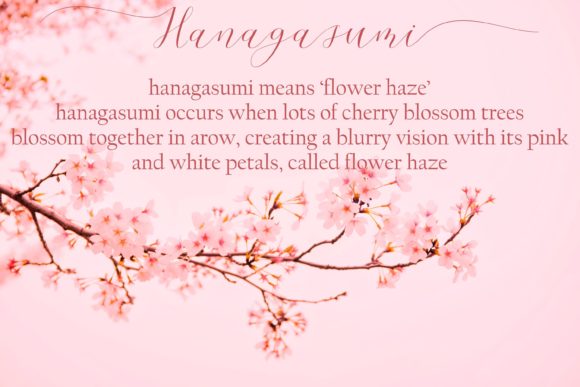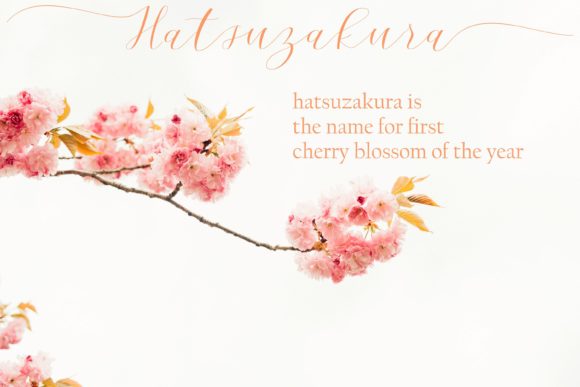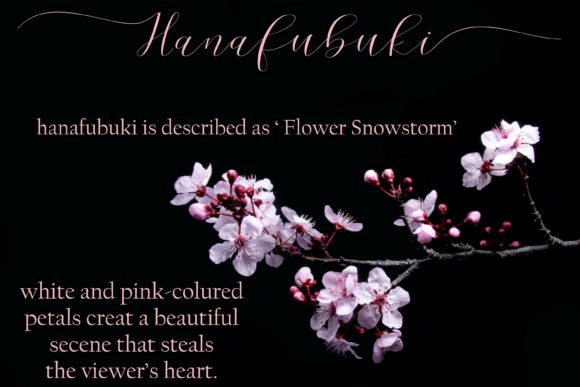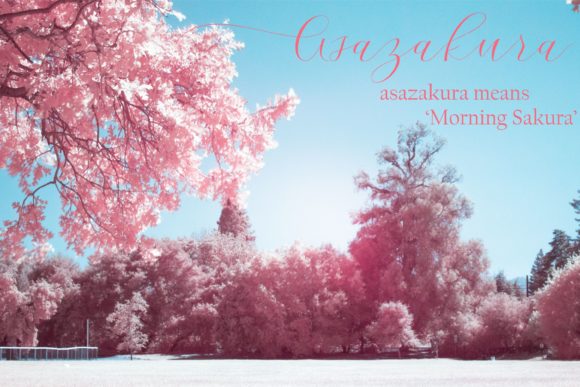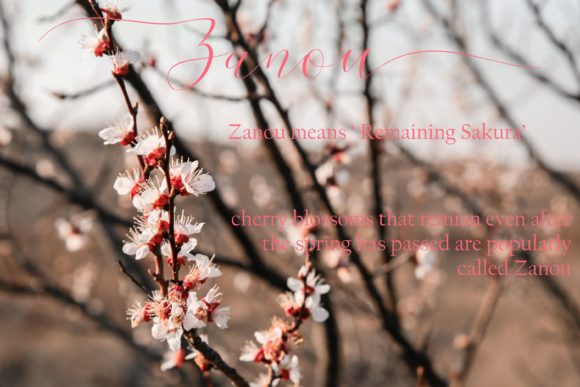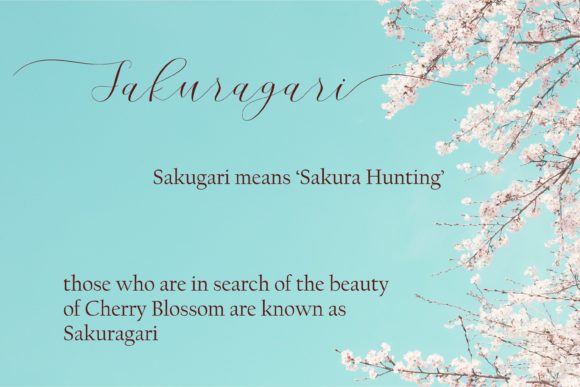
Adding a Touch of Whimsy to Your Designs
Have you ever been strolling through a beautiful garden on a warm spring day, surrounded by the sweet fragrance of blooming flowers and the soft rustle of petals in the breeze? That’s when it hits you – the perfect idea for a design project that will capture the essence of romance and elegance. For me, that moment often sparks a desire to create something truly special, and that’s where the right font comes in.
Enter the enchanting Cherry Blossom Script Font, a calligraphy typeface that embodies the beauty and luxury of cherry blossoms. With its flowing characters and delicate curves, this font is perfect for adding a touch of whimsy to wedding invitations, greeting cards, or any design project that requires a romantic and sophisticated touch. Whether you’re a seasoned designer or just starting out, the Cherry Blossom Script Font is a valuable addition to your toolkit.
Key Features of Cherry Blossom Script Font
- Unique Characteristics: The font features a beautiful, hand-painted design with subtle brush strokes and delicate flourishes, giving it a unique and elegant feel.
- Font Style: The font is a script style, ideal for creating invitations, greeting cards, and other design elements that require a touch of elegance and sophistication.
Designer Review: Cherry Blossom Script Font
Overall, I think the Cherry Blossom Script Font is a lovely addition to any design project. ✨ Its elegant and whimsical style makes it perfect for wedding invitations, greeting cards, or any other design that needs a touch of romance. ✨ The font is highly customizable, allowing users to adjust the size, color, and spacing to fit their design needs.
The font’s unique character set and ligatures add to its charm, making it stand out from other script fonts. ✨ I particularly love the way the letters flow together, creating a beautiful, handwritten feel.
Despite these limitations, I believe the Cherry Blossom Script Font is a beautiful and versatile font that can add a touch of elegance to any design project. With a little practice and patience, users can unlock its full potential and create stunning designs that showcase its unique charm.
Use the Cherry Blossom Script Font to create a whimsical and elegant feel in your designs. Pair it with bold fonts for contrast and create beautiful typography combinations.
Experiment with different font sizes and styles to create a unique look. Use the font to add a touch of romance and sophistication to your designs.
The Cherry Blossom Script Font is perfect for:
- Baby shower invitations and decorations.